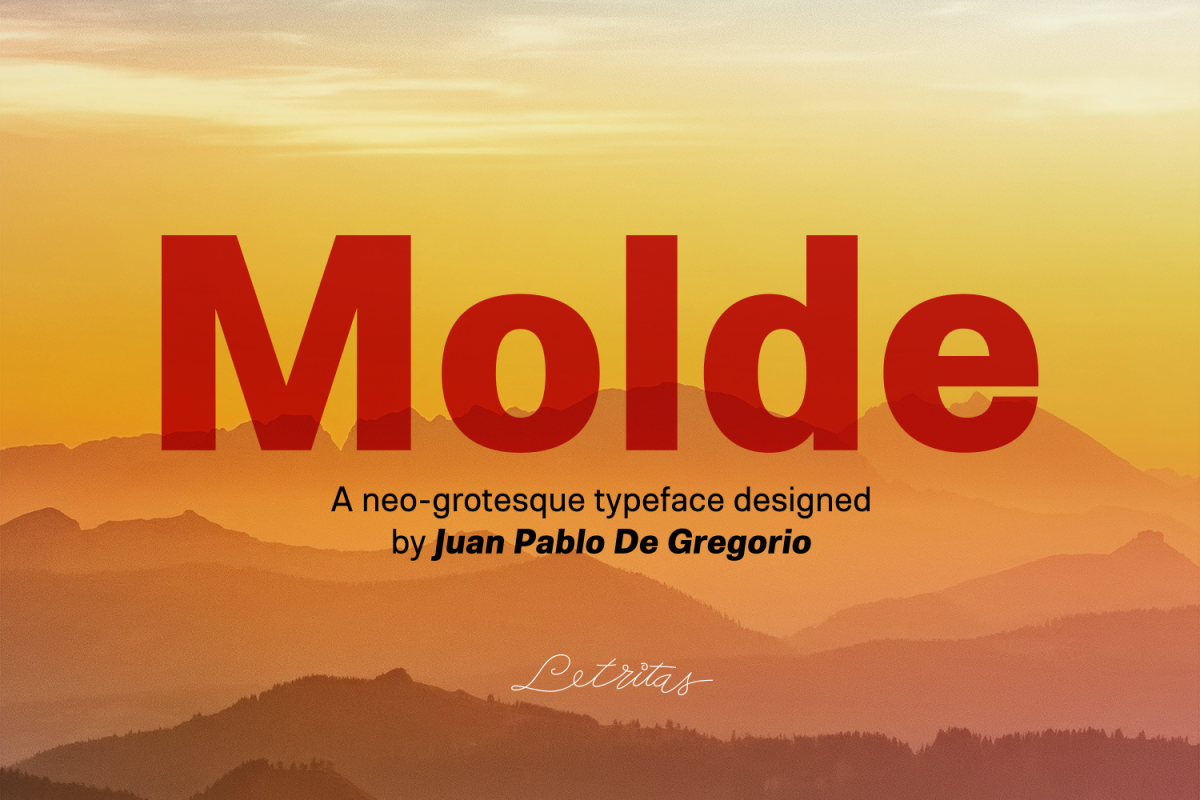
Molde
Molde is composed of 6 widths ranging from the tablet to the expanded and in the set of characters includes a Unicase version and a small caps version.
The family is composed of 3 parts: the regular version, the italic version and the reverse version.
Each one of them has 9 weights. Each weight has 649 characters and it has been thought for 219 latin languages.